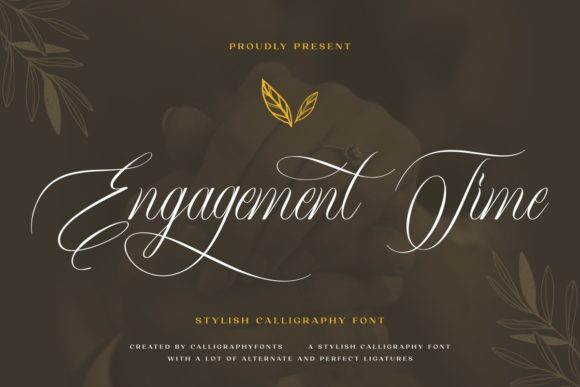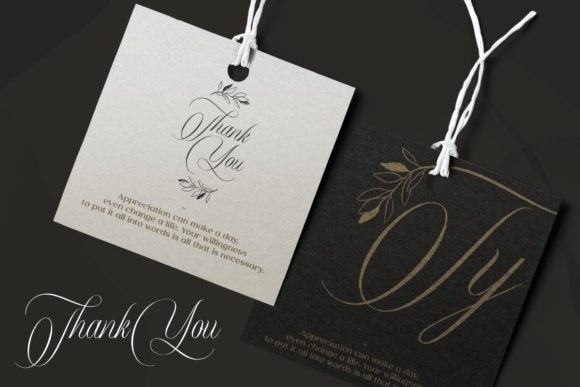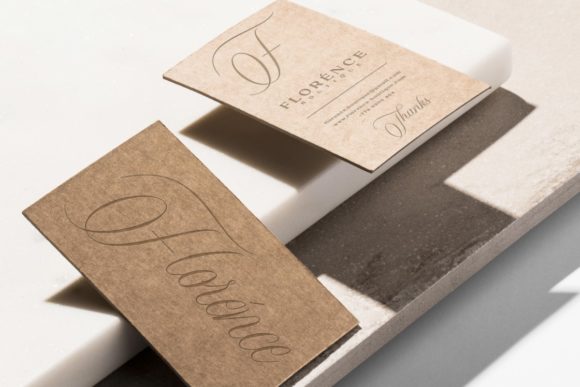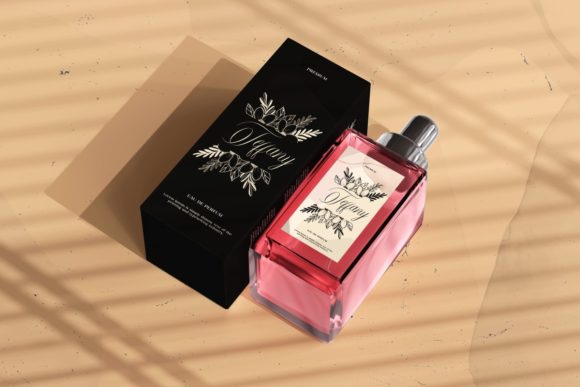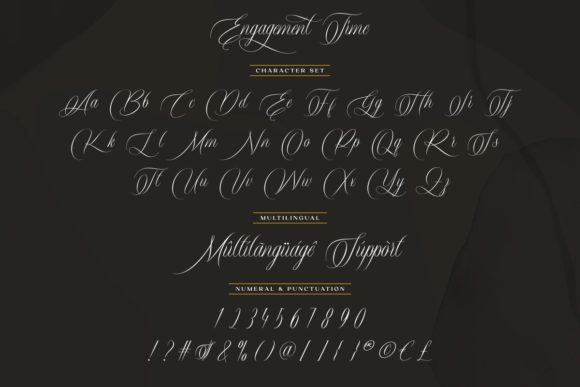
About Engagement Time Font
Engagement Time is a stunning script font. It will add a luxury spark to any design project that you wish to create! This font is PUA encoded which means you can access all of the amazing glyphs and ligatures with ease!